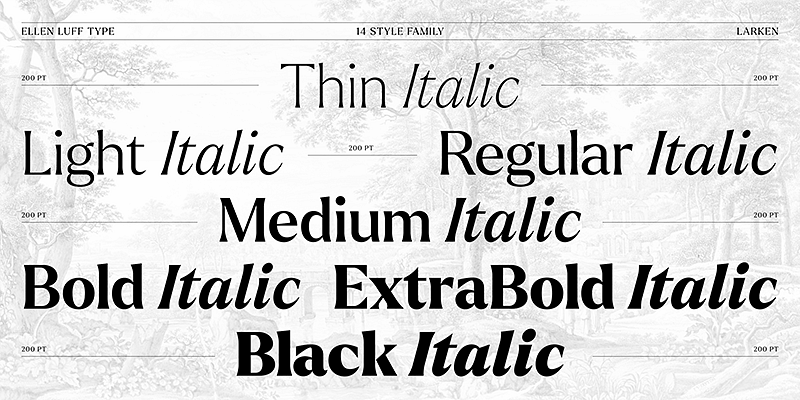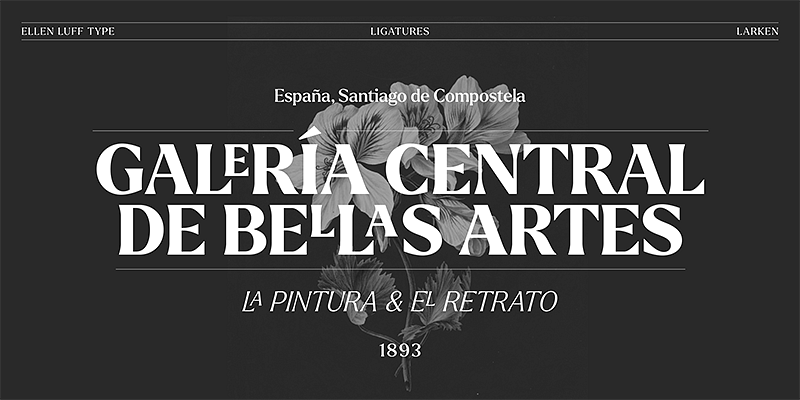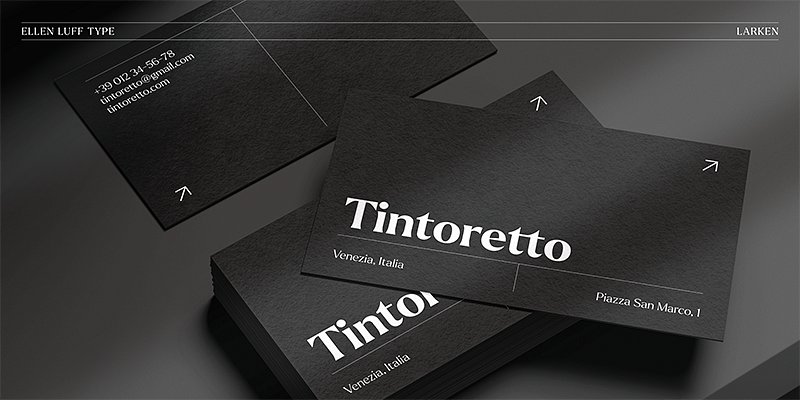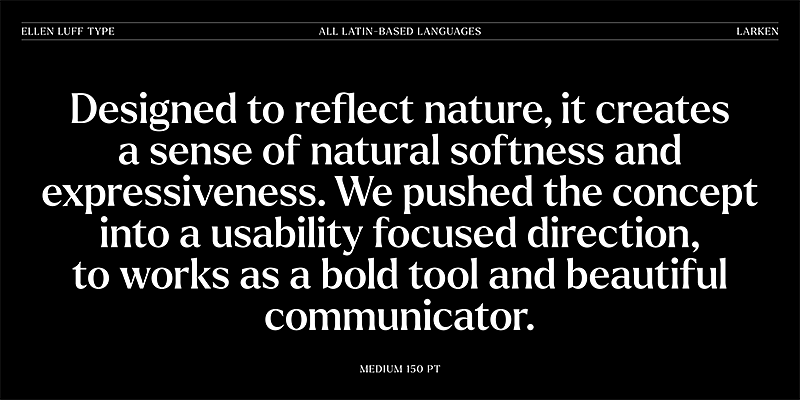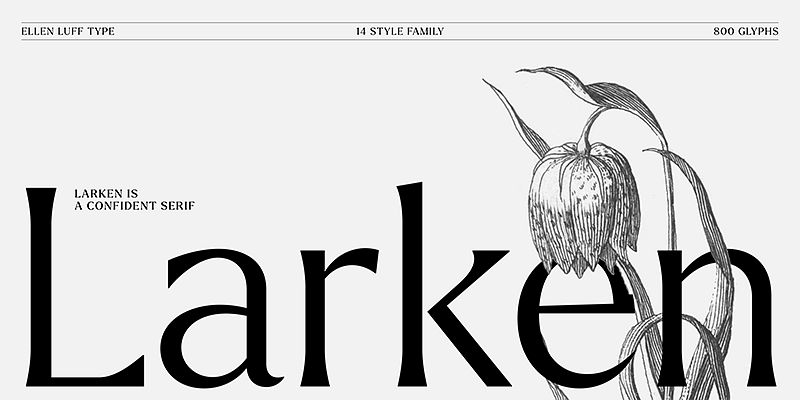
Larken Font
The Larken Font is perfect for sophisticated editorial designs, premium publishing projects, elegant book typography, refined magazine layouts, luxury brand communications, professional academic publications, distinguished literary works, upscale corporate materials, contemporary newspaper headlines, and prestigious institutional documents.
What makes the Larken Font so exciting is its exceptional fusion of classical typography elegance with contemporary design refinement that creates a distinctive voice perfect for premium content and sophisticated communications. This distinguished typeface features carefully crafted letterforms, harmonious proportions, and refined character details that establish an unmistakable quality perfect for projects demanding both readability excellence and aesthetic sophistication. The font's elegant personality and versatile performance make it an outstanding choice for publishers, designers, and institutions seeking to communicate authority, intelligence, and refined taste with enduring typographic quality.
The Larken Font family includes comprehensive stylistic options, featuring multiple weights from Light to Bold, condensed and extended variations, plus complete italic sets. Each variation maintains the signature sophisticated appeal while offering different levels of visual presence and editorial versatility, providing designers with complete flexibility for creating elegant hierarchies and refined publication systems that honor both tradition and innovation.
The refined design characteristics of Larken Font demonstrate master-level typography craftsmanship, with each character optimized for perfect optical balance, exceptional readability, and visual harmony across all sophisticated applications. The font's extensive character set includes comprehensive international language support, advanced OpenType features, editorial punctuation, and scholarly symbols, ensuring seamless integration into global publishing workflows and professional communication systems.
Expertly optimized for both digital and print premium applications, this remarkable font maintains flawless clarity and sophisticated presence across all media formats and editorial requirements. From large-scale institutional signage to detailed literary texts, Larken Font performs exceptionally while preserving its distinctive elegant character and professional sophistication.